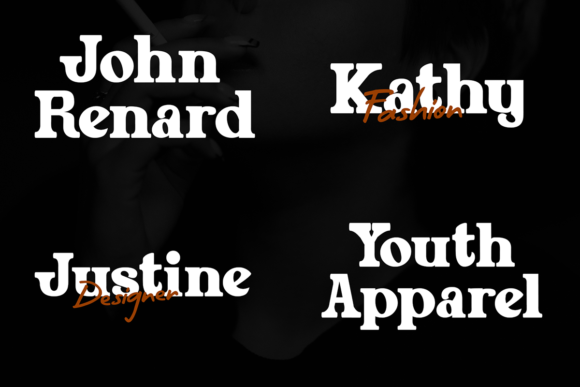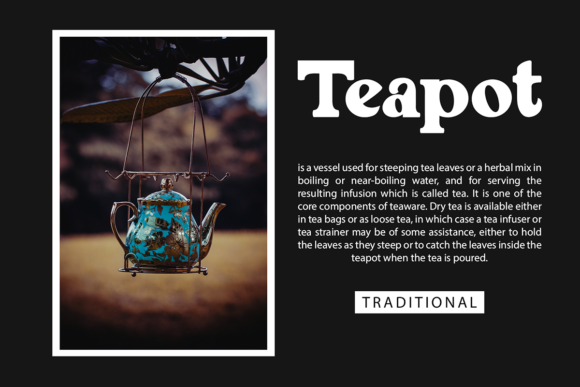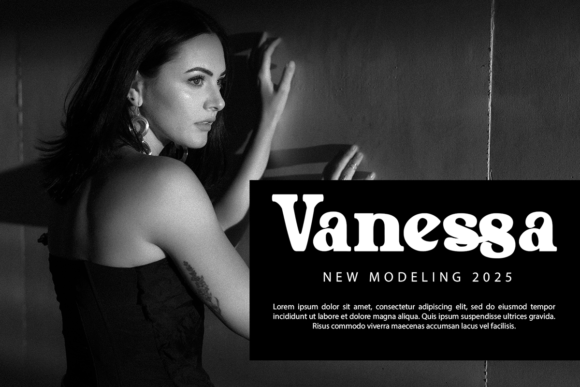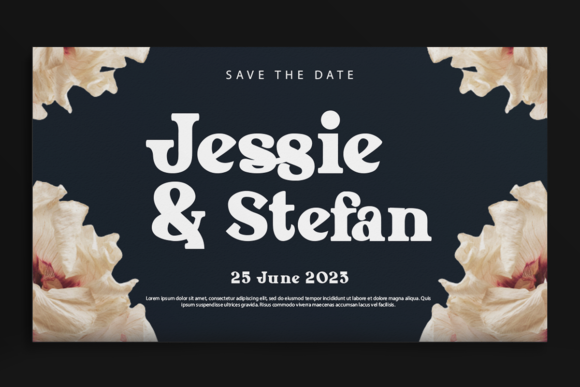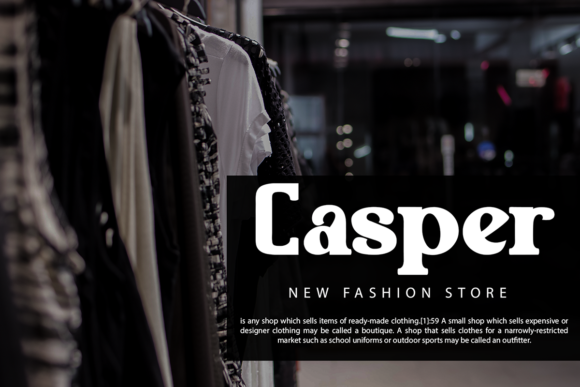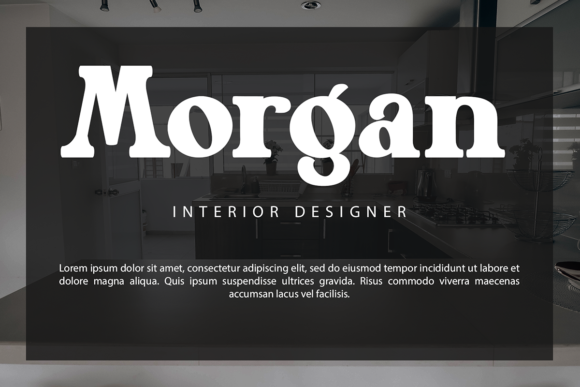
Introduction to Jack Rooney Font
Jack Rooney is a modern serif font.
This typeset is perfect for brand logos, invitations, greeting cards, or even any kind of project With multilingual features and style variations, this typeface would further enhance the aesthetical aspect of your work.